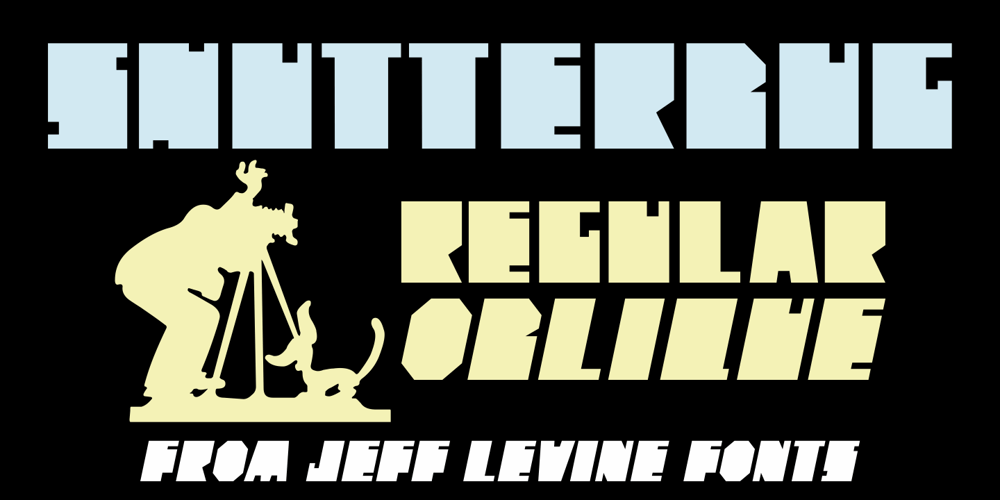
Shutterbug JNL
Shutterbug JNL font
Shutterbug JNL Font Family was designed by Jeff Levine and published by Jeff Levine. Shutterbug JNL contains 2 styles and family package options. On April 20, 1950, film comedian Jerry Lewis indulged his love of cameras by opening up Jerry Lewis’ Camera Exchange on Vine Street in Hollywood. It closed in 1951.Thanks to an image preserved within newsreel footage of the shop’s grand opening night, a glimpse of the post-Art Deco signage with its unusual, block style lettering inspired a digital version.Highly unusual and best for novelty projects, Shutterbug JNL is available in both regular and oblique versions.